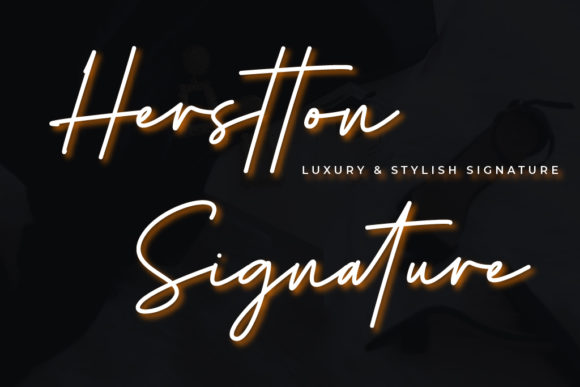
About Herstton Signature Font
Herstton Signature is an enchanting handwritten font. This versatile script font has a wide spectrum of applications ranging from greeting cards to headlines and is guaranteed to add a romantic feel to your next project.